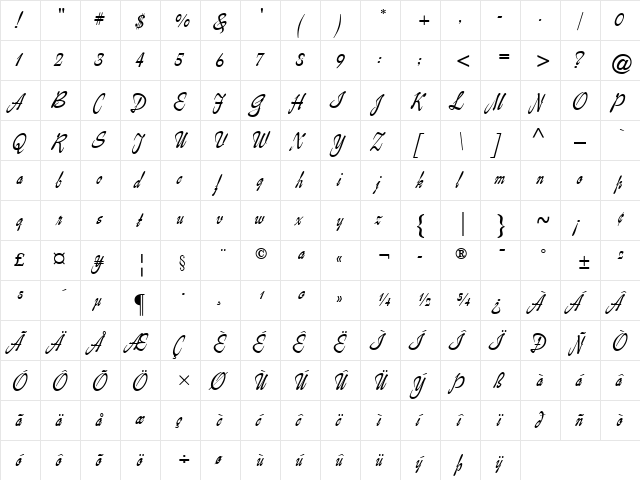
ATJasper Regular
Design Context for ATJasper Typeface
ATJasper takes a measured approach to typography — its balanced proportions and neutral character make it a reliable workhorse for both digital and print work.